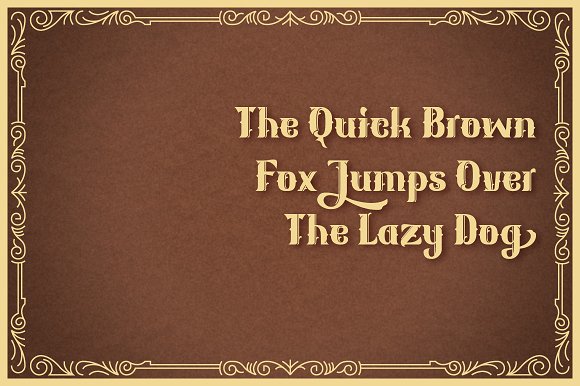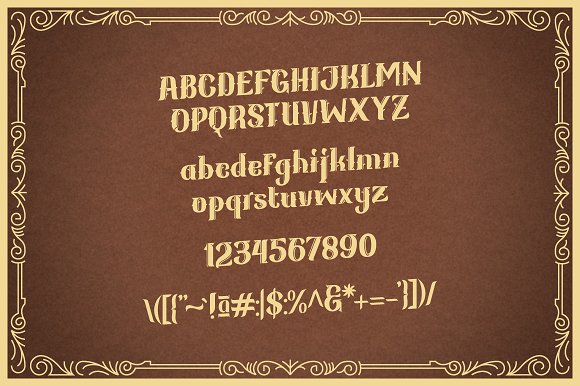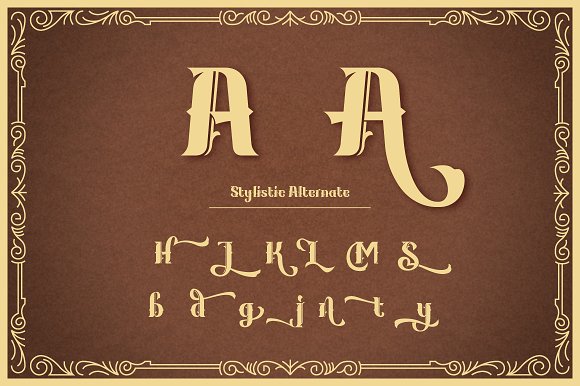
Introduction to Kanjian Font
Kanjian is an ornamental font that is great for headlines & display, created by the Arterfak Project.
Key Features of Kanjian Font